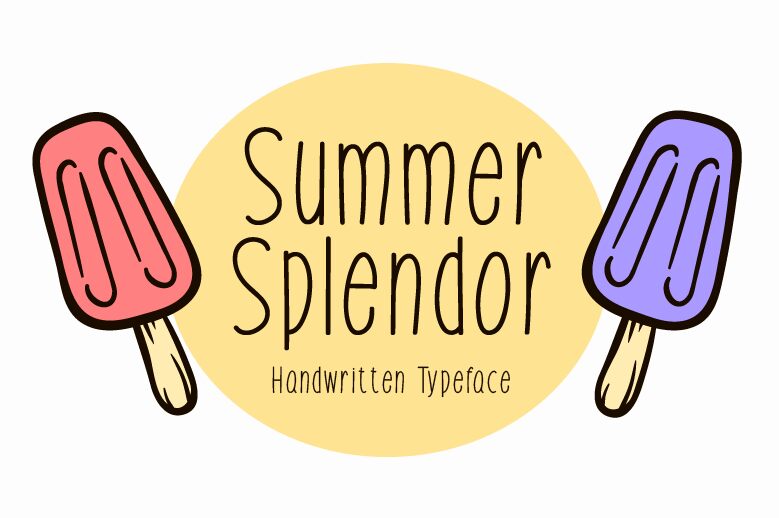
Summer Splendor, a delightful creation by the talented designer Md Shohail Bhuian, is a light and condensed font that exudes charm with its lovely handwritten style. This endearing typeface adds a touch of whimsy to any project it graces. Its soft strokes and elegant curves make it perfect for romantic wedding invitations, enchanting greeting cards, or dreamy blog headers. Let Summer Splendor transport your designs to a world of beauty and grace. Captivate your audience with this font that is tailor-made for creating diverse projects that evoke warmth and serenity.
Summer Splendor